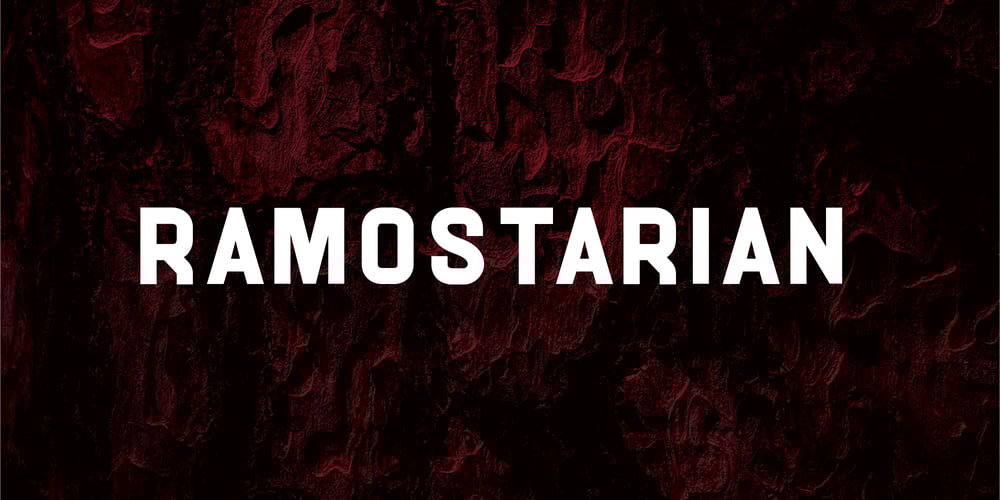
Ramostarian Font Family was designed by Mohammad Teguh and published by Starone Project. Ramostarian contains 3 styles and family package options. Ramostarian is family font sans serif type. Designed By Mohammmad Teguh, Designer of Starone Project foundry. This font has geometrical Shape in Bold, Heavy and regular.